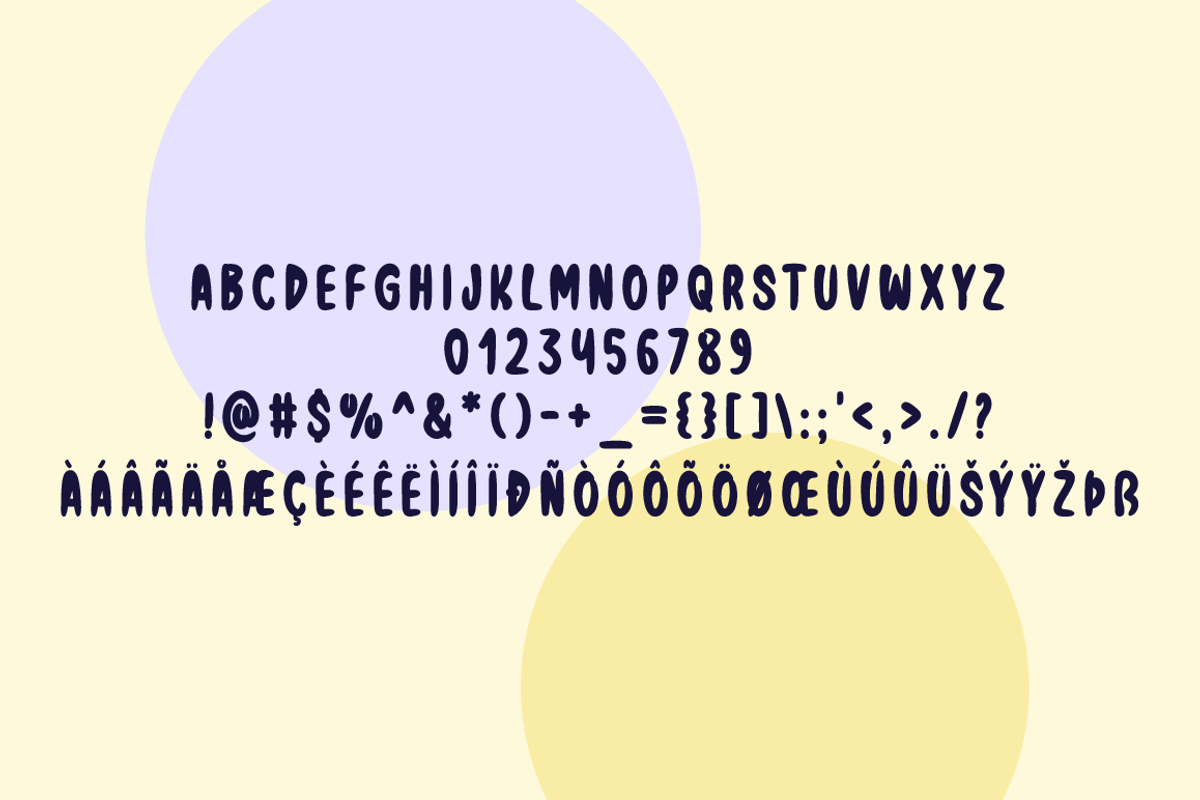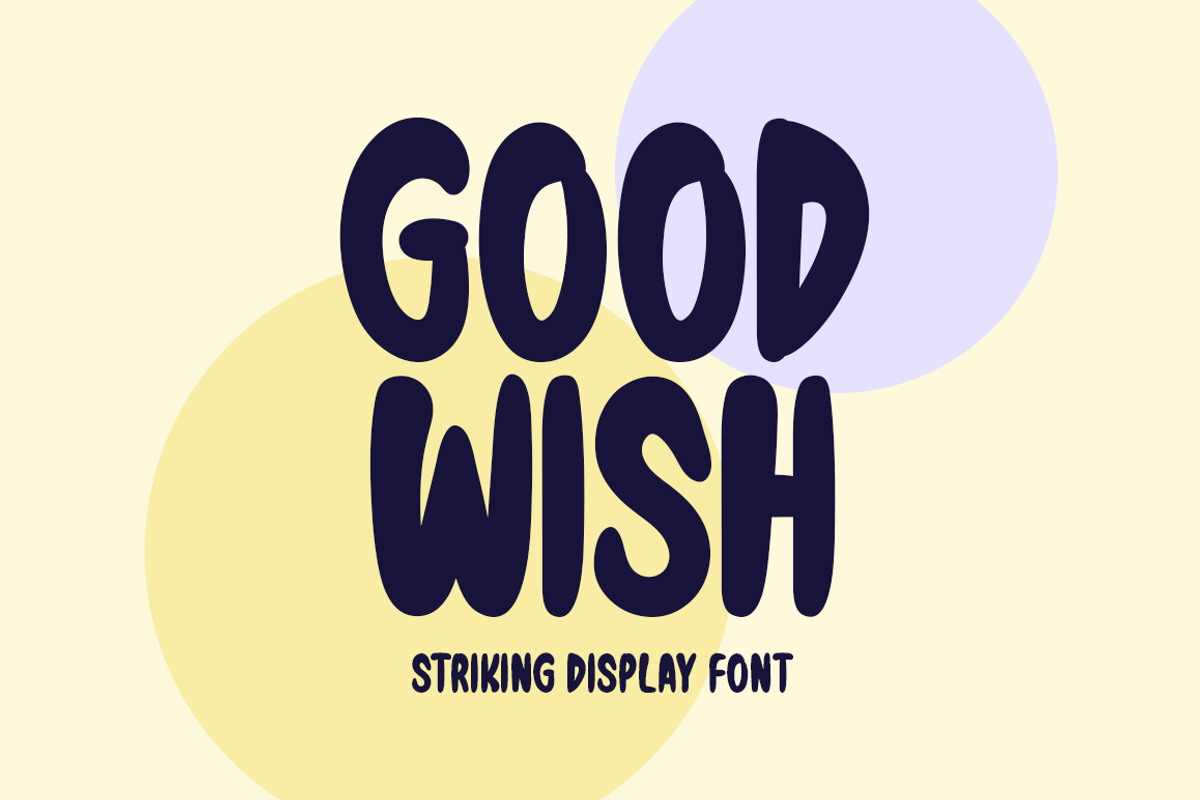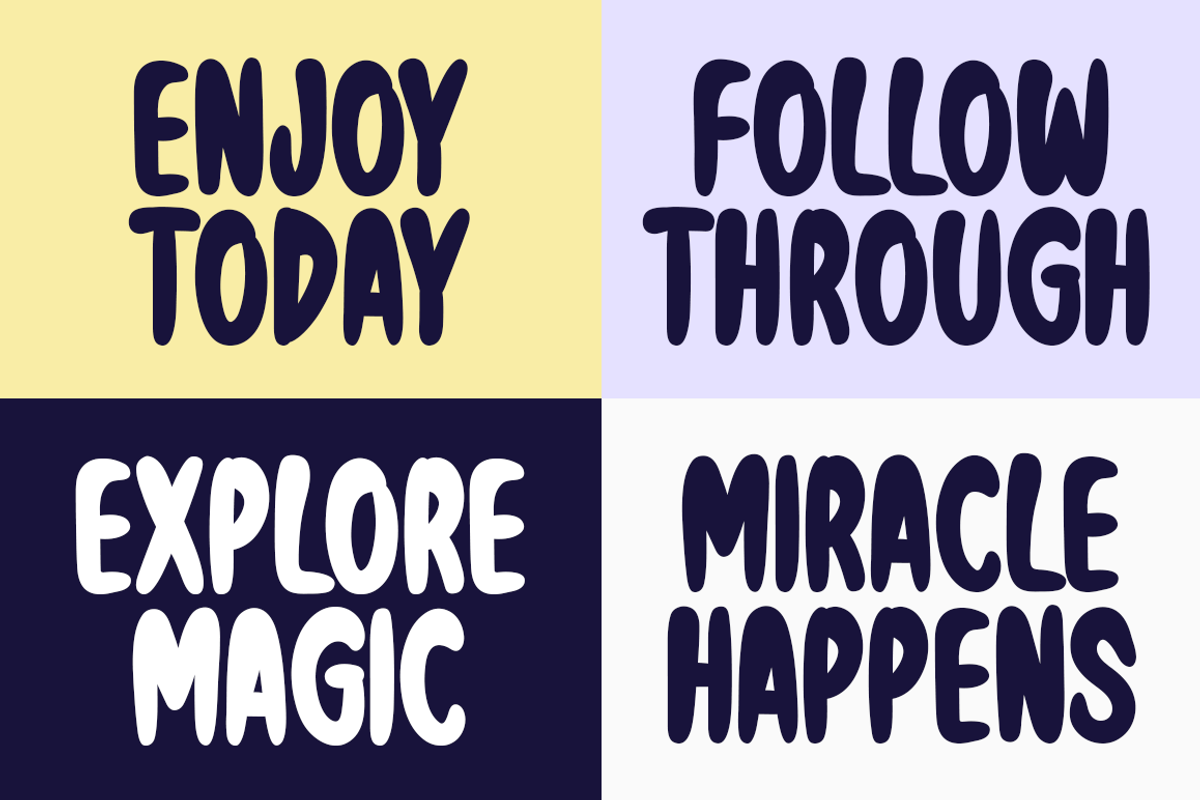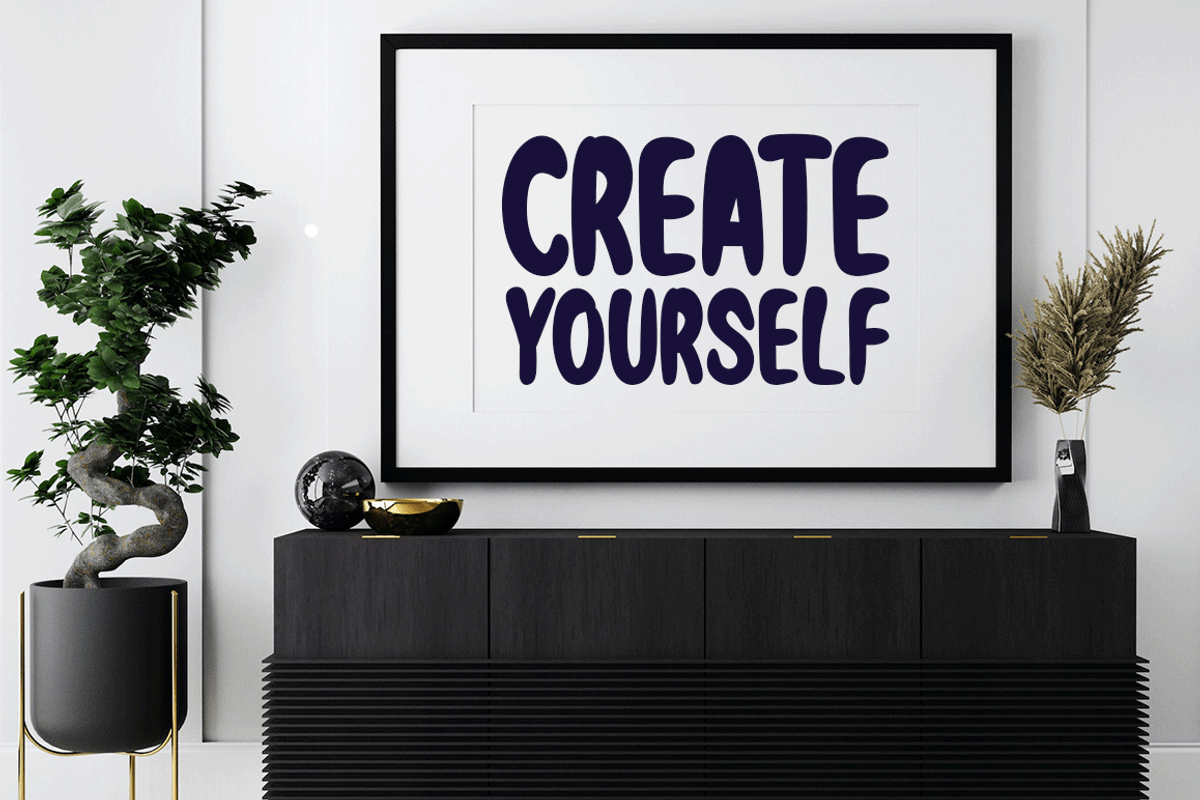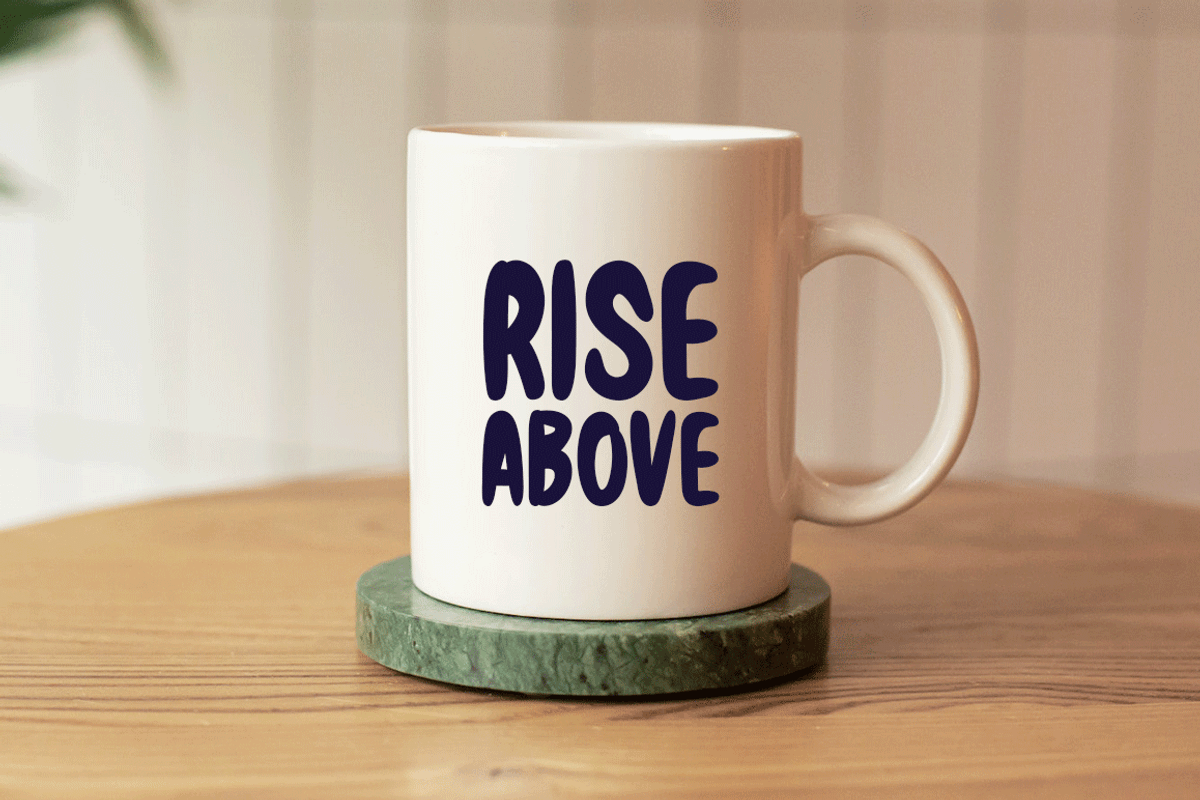
Good Wish Typeface
Introducing Good Wish!
Good Wish is a striking display font. It can easily be matched to an incredibly large set of projects, so add it to your creative ideas and notice how it makes them stand out!
Includes a range of multilingual support